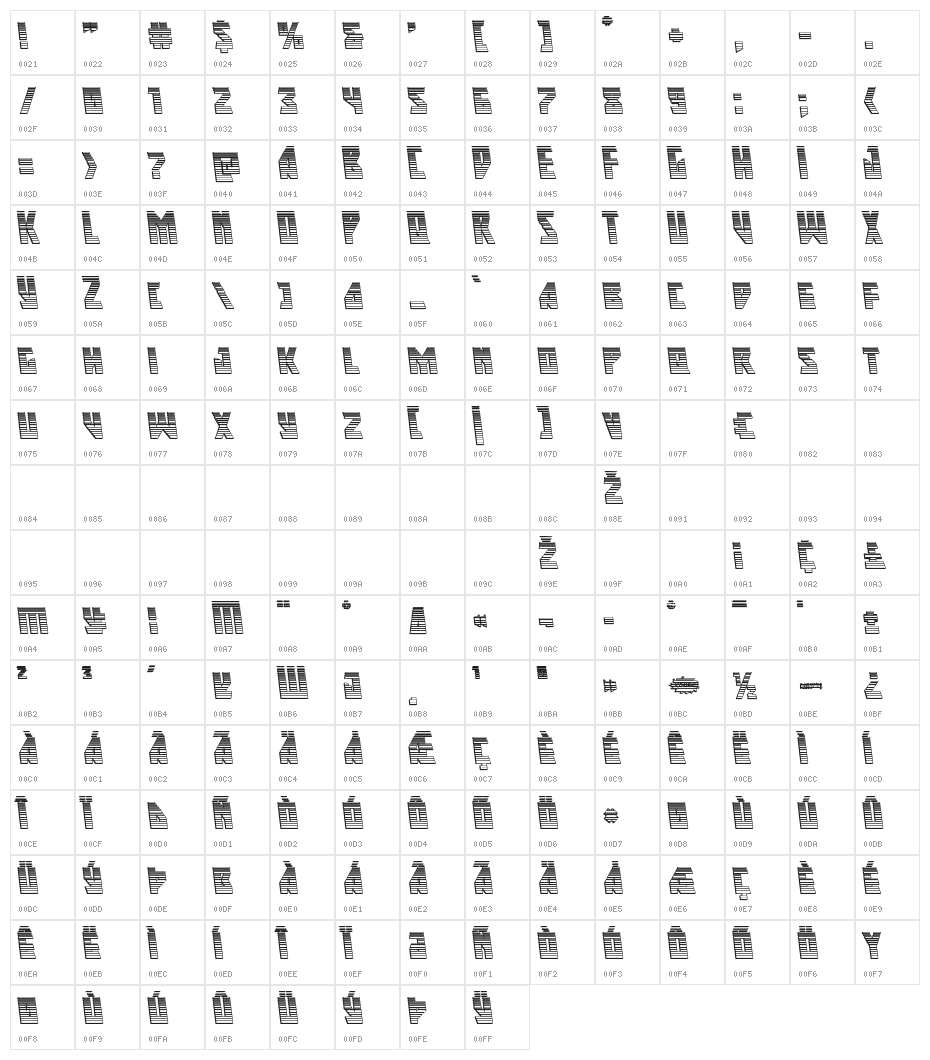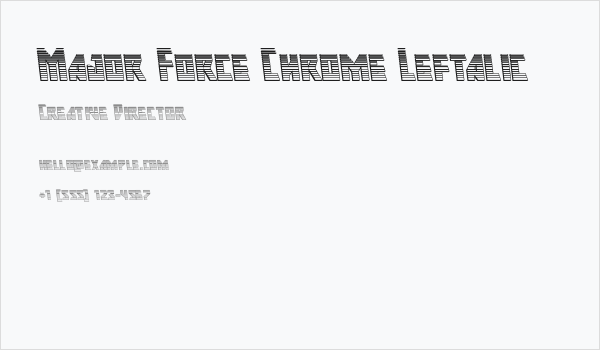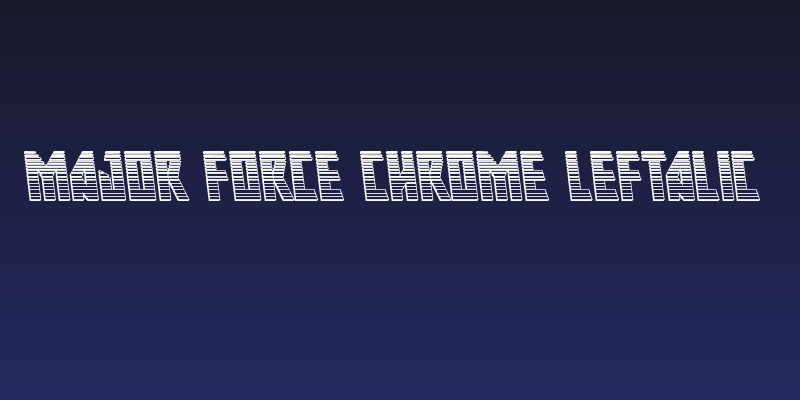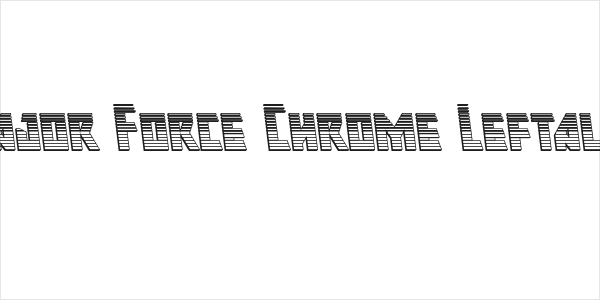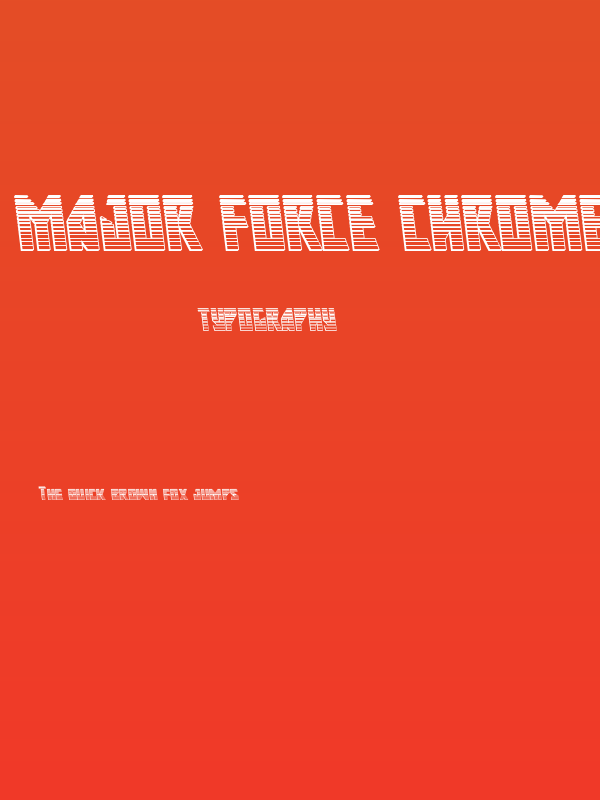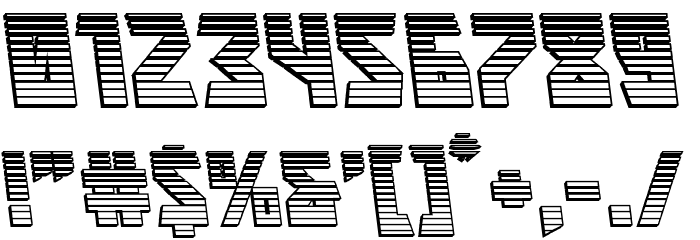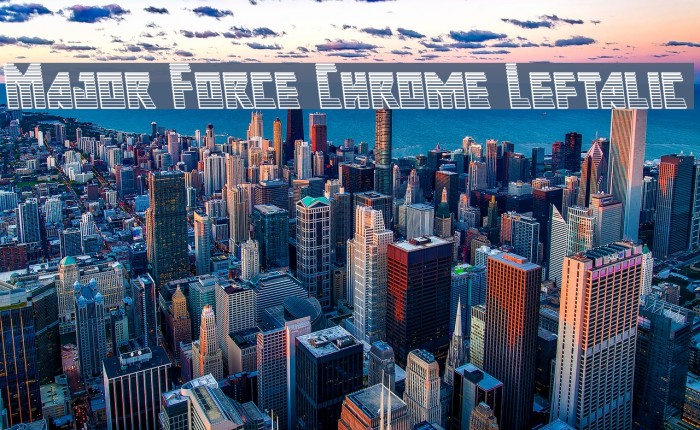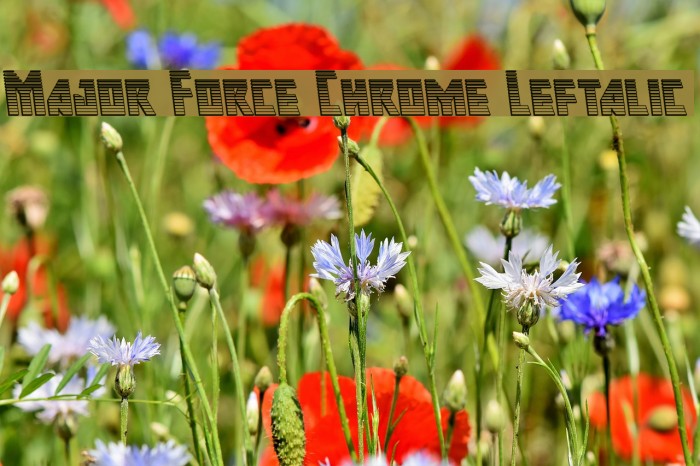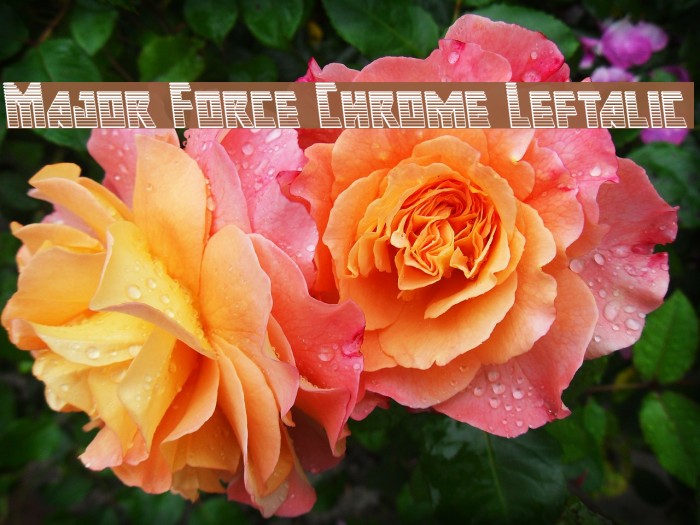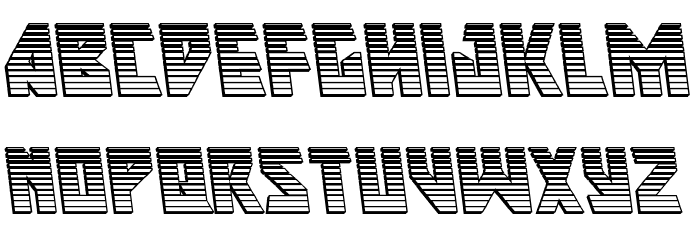
Major Force Chrome Leftalic Font
This font features a bold, futuristic design with a three-dimensional, chrome-like appearance. Each character is constructed with horizontal lines that create a layered effect, giving the impression of depth and movement. The angular and geometric shapes of the letters contribute to a modern and edgy aesthetic, making it stand out in any design. The uppercase and lowercase letters, along with numbers and special characters, maintain a consistent style, ensuring uniformity across different text elements. The font's unique style is ideal for projects that require a strong visual impact.
| Proposed Projects | Ideal for sci-fi themed posters, video game titles, technology branding, and futuristic event invitations. |